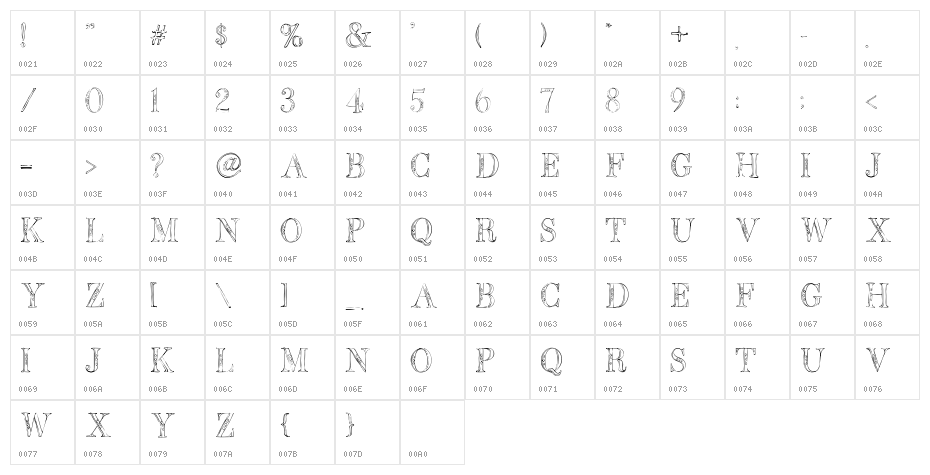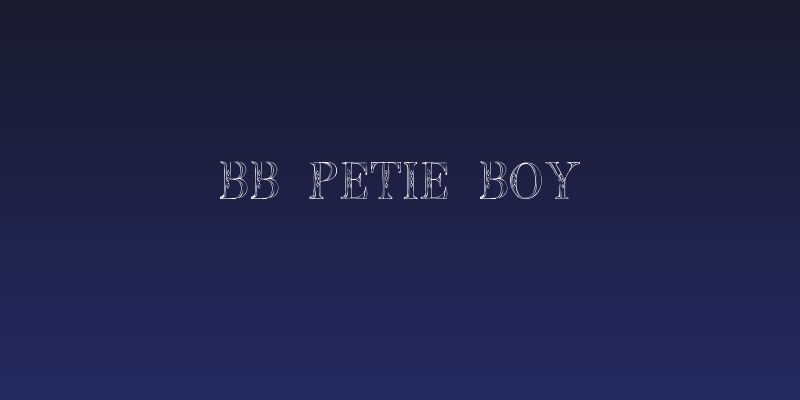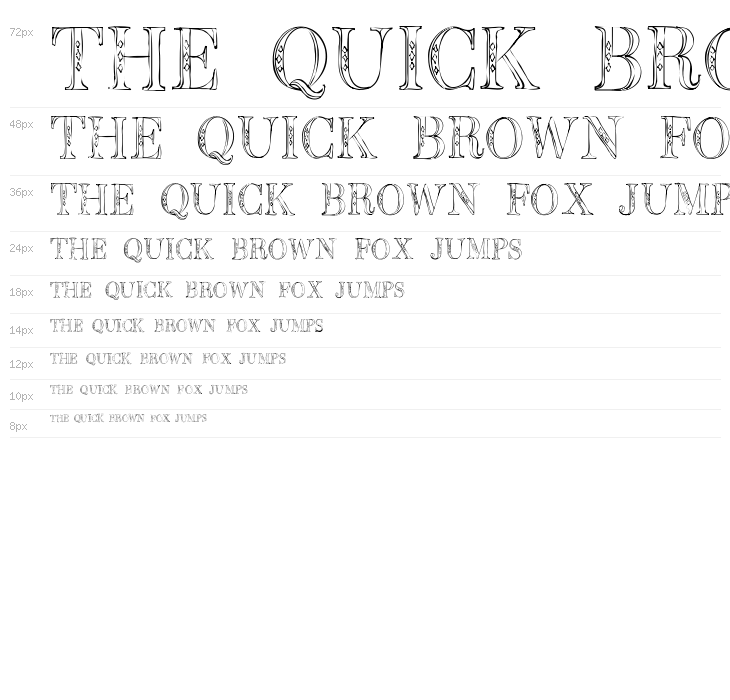
BB Petie Boy Font
BB Petie Boy Description
This font features a decorative style with intricate details within each character, giving it a unique and artistic appearance. The uppercase and lowercase letters are adorned with ornamental patterns, adding a touch of elegance and sophistication. The numerals and special characters follow the same decorative theme, making the font cohesive and visually appealing. The overall design is reminiscent of vintage or classical styles, with a modern twist that makes it suitable for various creative projects. The font's intricate details make it stand out, perfect for designs that require a touch of flair and creativity.
| Overall Style | Vintage, Decorative |
| Proposed Projects | Ideal for wedding invitations, vintage-themed posters, artistic branding, and decorative headlines. |